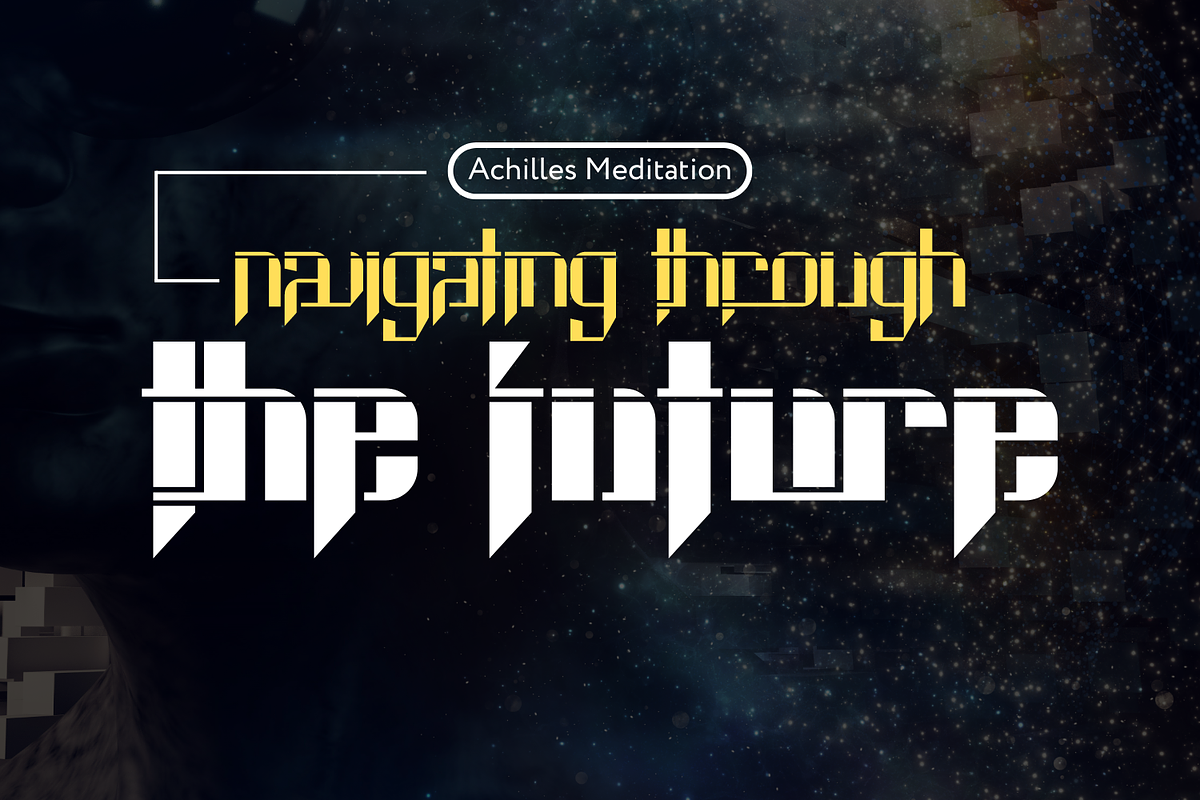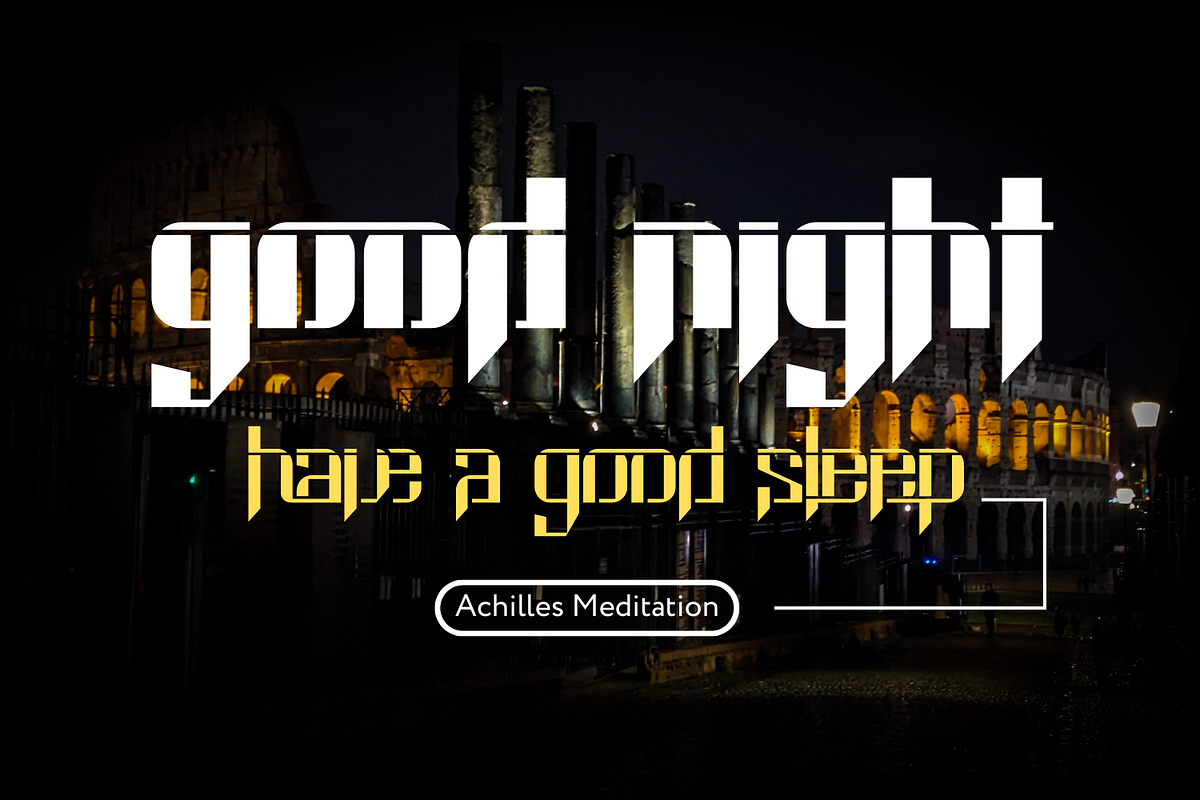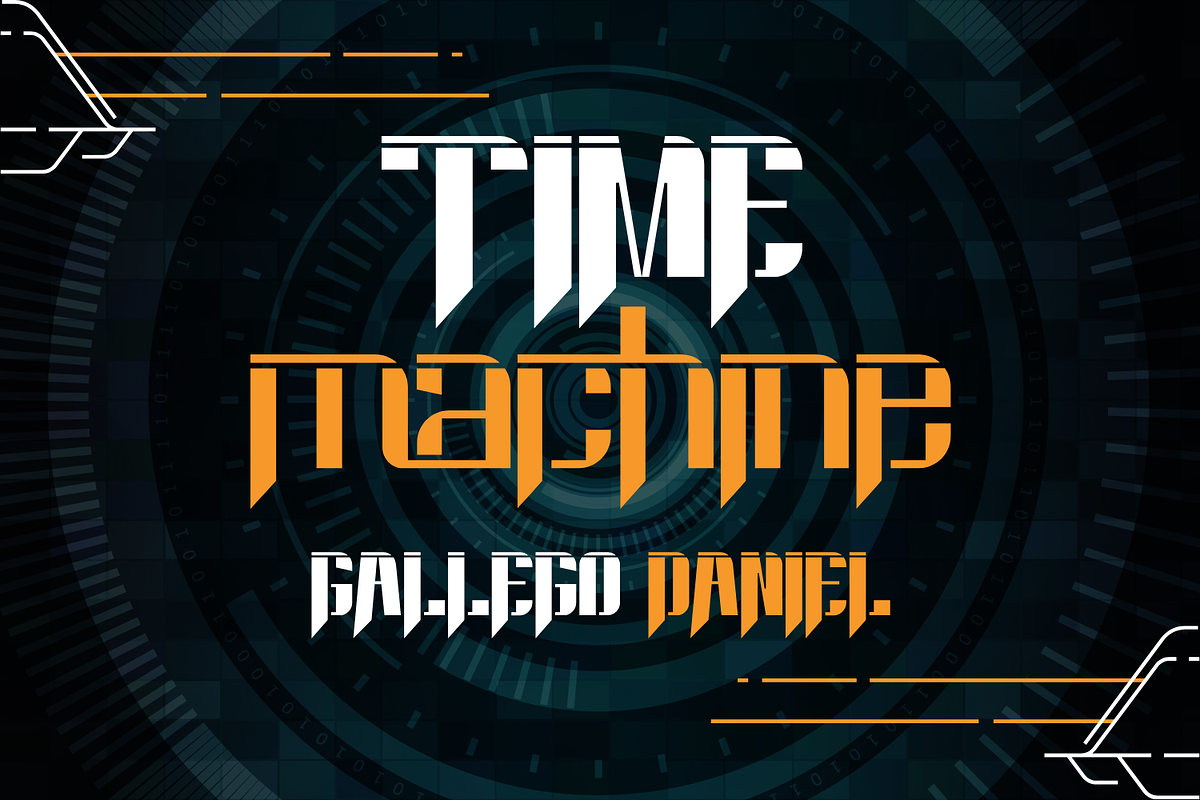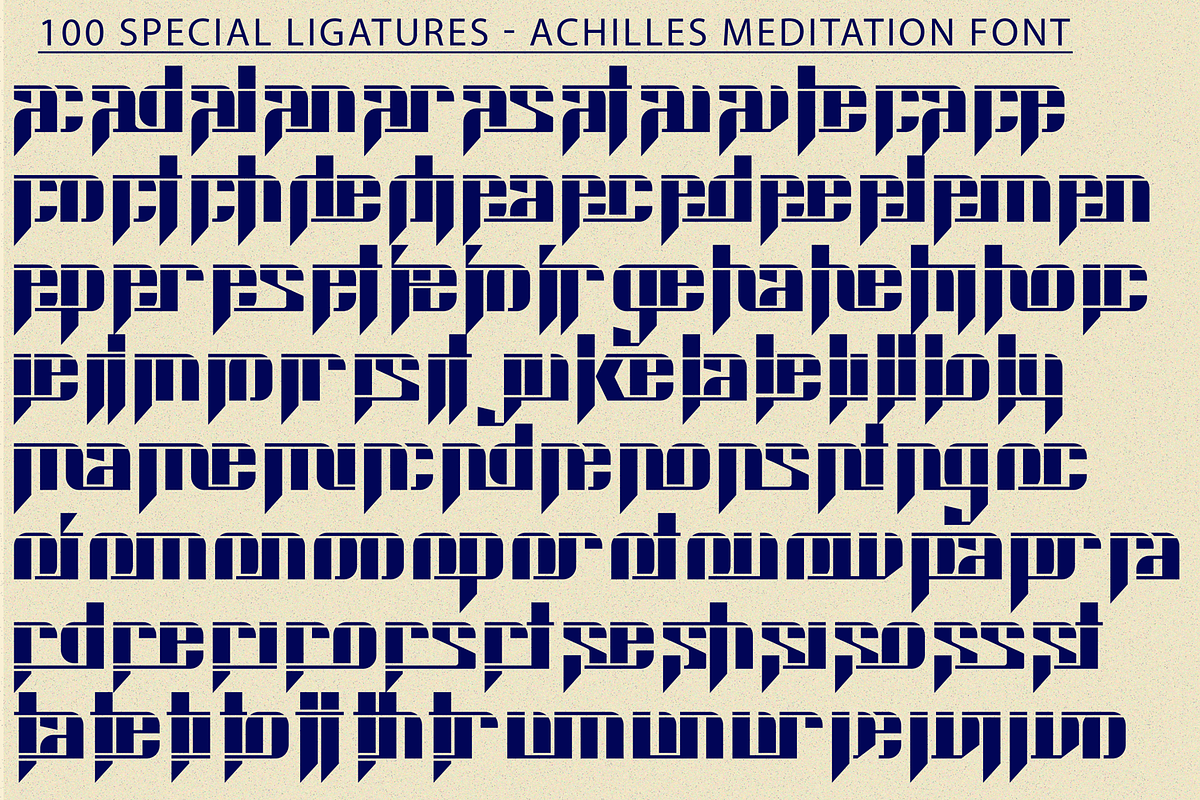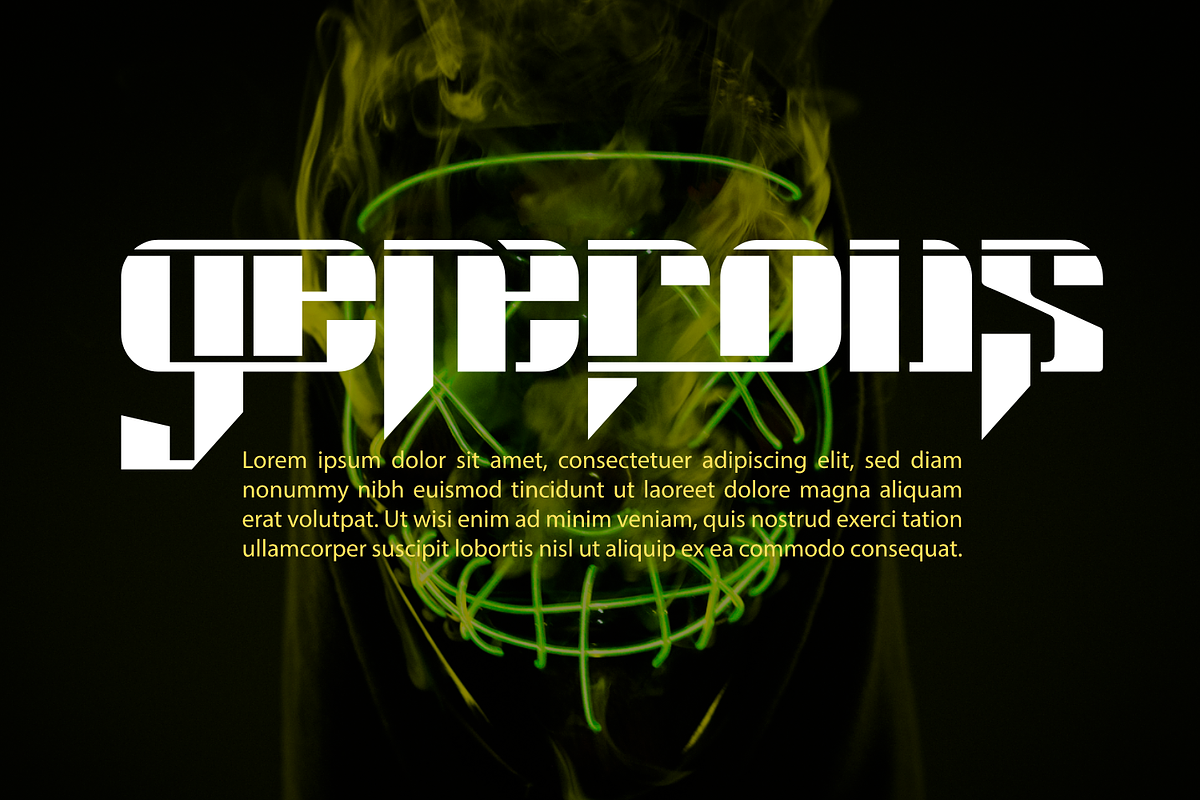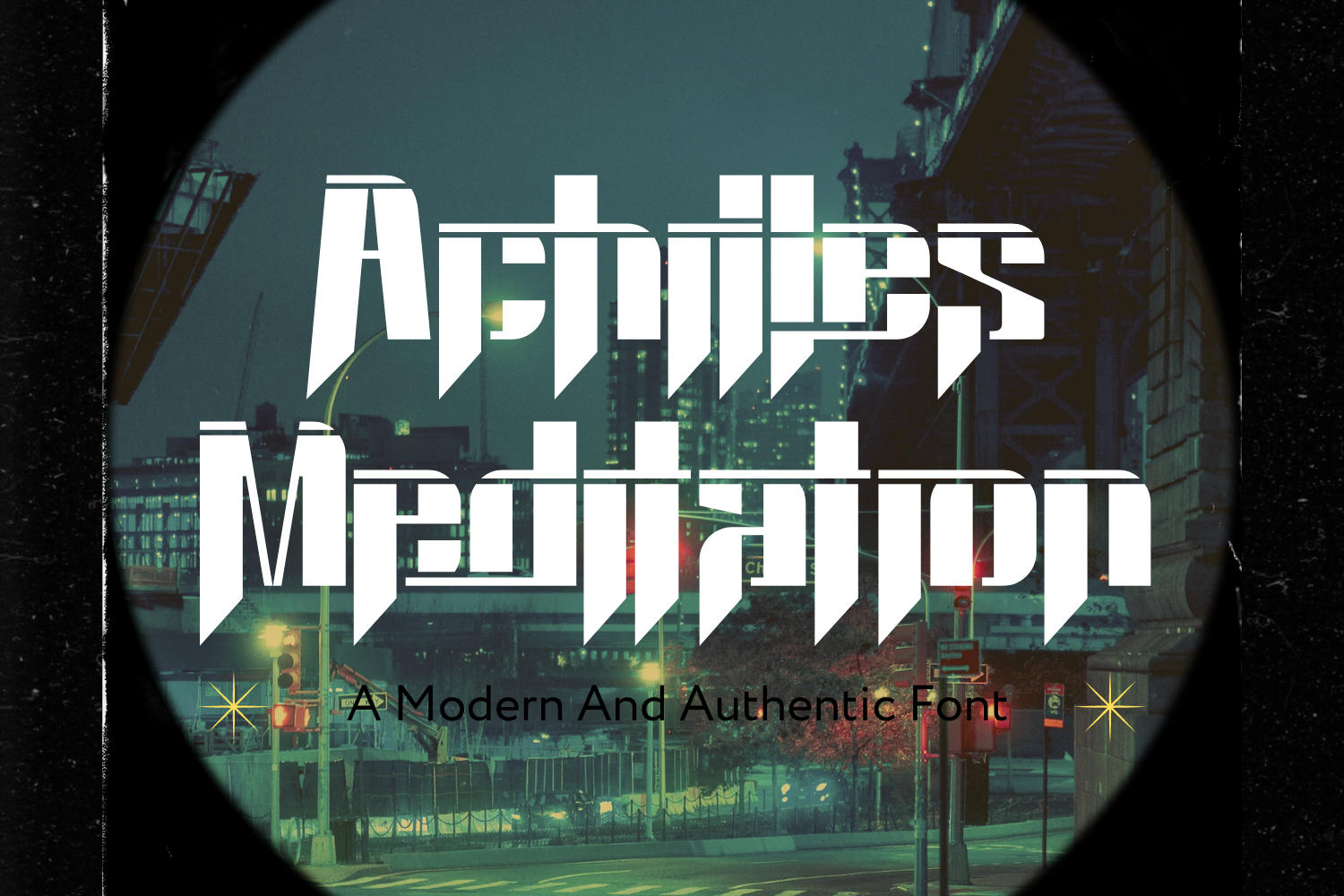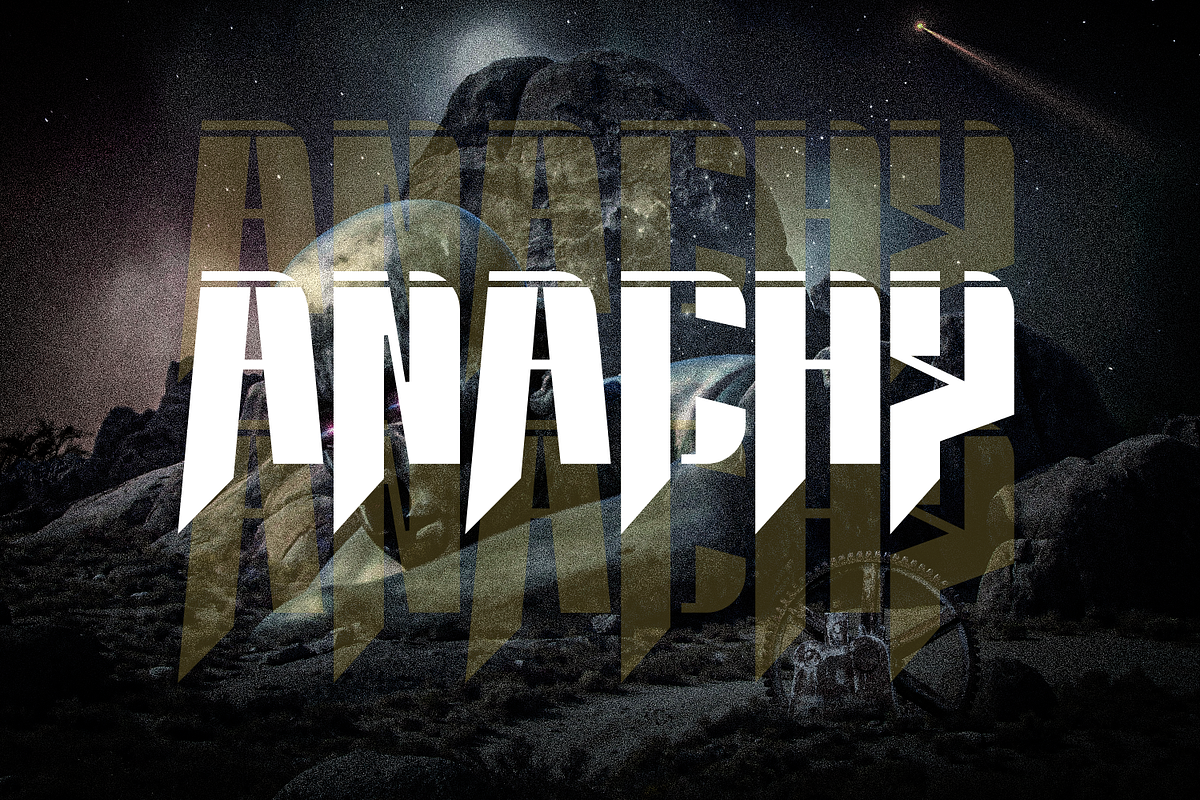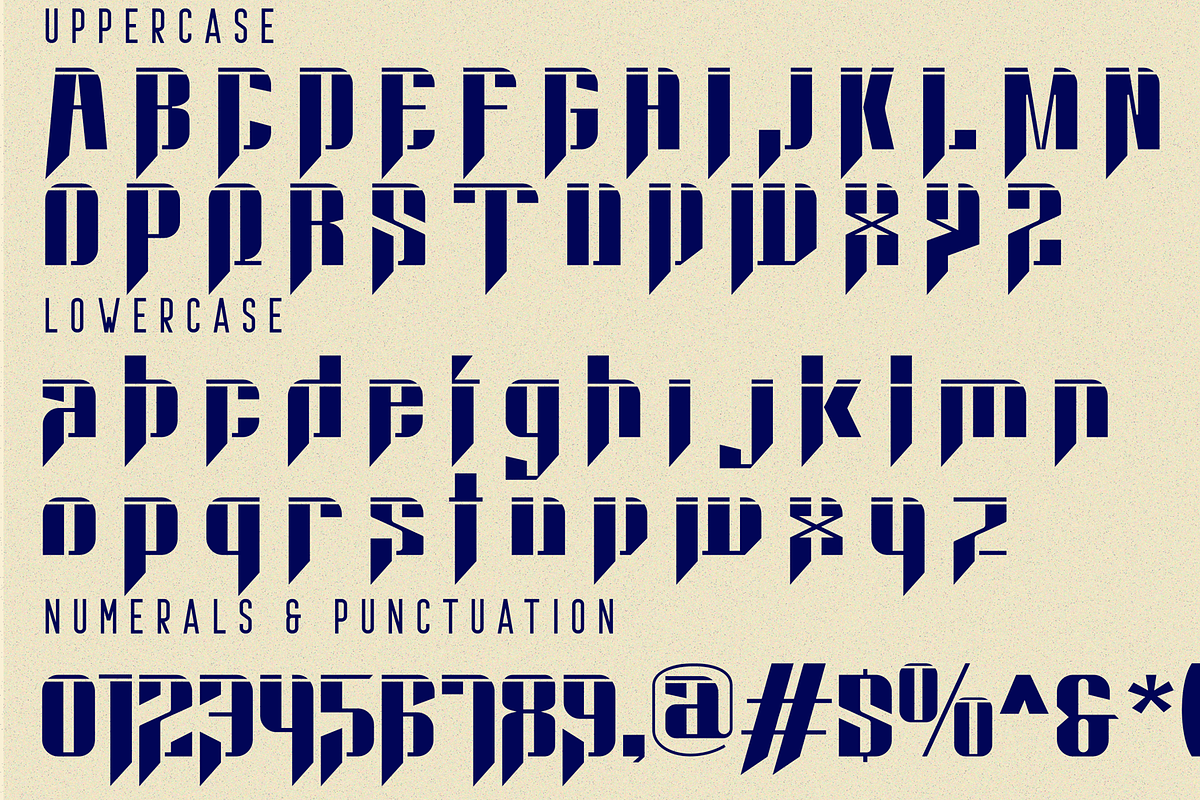
Achilles Meditation - Hero Font
Achilles Meditation Font is a bold and authentic display font. It's inspired by action movie posters with the theme of war or knights in the night knight. This font is not just a collection of letters; it's a visual narrative of strength, speed, and superhero prowess. Whether you're designing a logo for a masked vigilante, creating dynamic sports-themed graphics, or crafting the name of a superhero, this font is your ally in making a bold statement.
Achilles Meditation was built with OpenType features and includes 100 ligatures, alternate, numbers, punctuation, and it also supports other languages.
ac ad al an ar as at au av be ca ce ch co ct de di ea ec ed ee el em en ep er es et fe fo fr ge ha he hi ho ie ic il in io ir is it ju ke la le li ll lo ly ma me mi nc nd ne ng no nt ns oc of om on oo op or ot ou ow pa pr ra rd re ri ro rs rt se sh si so ss st ta te th ti to tr tt um un ur ve wi wo